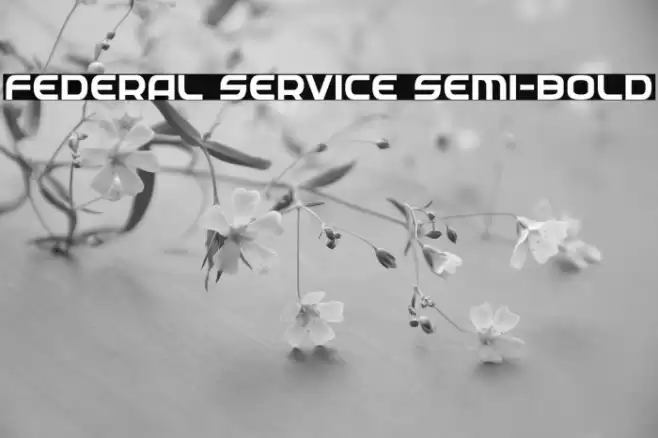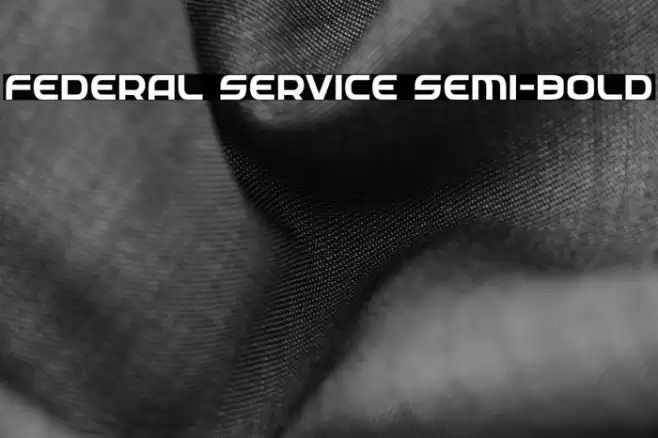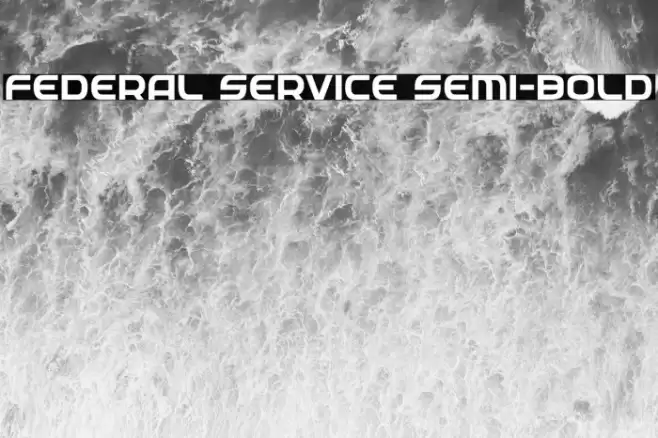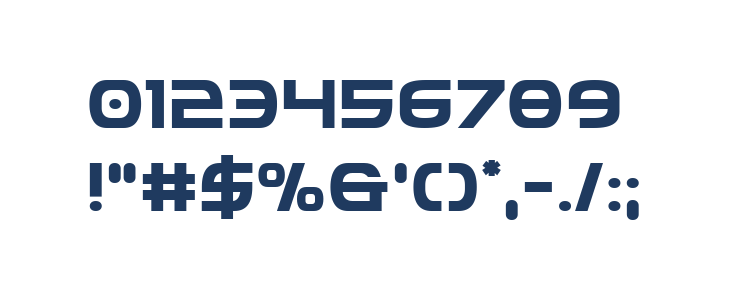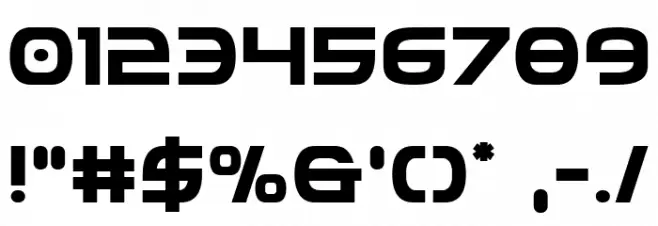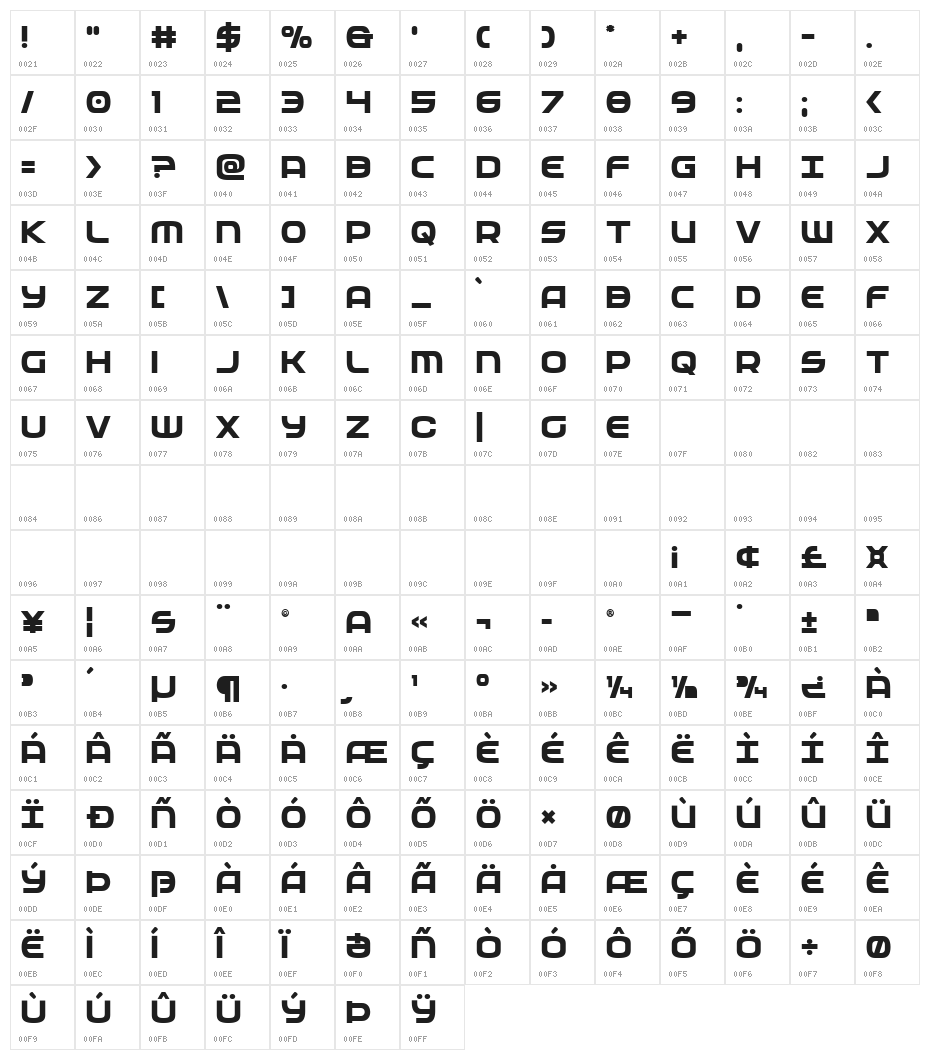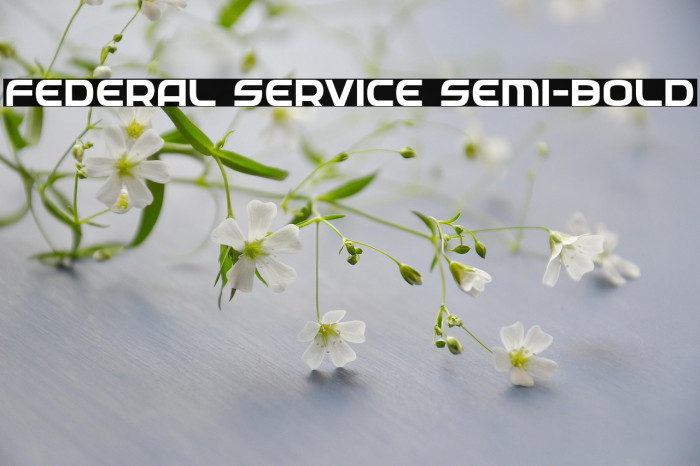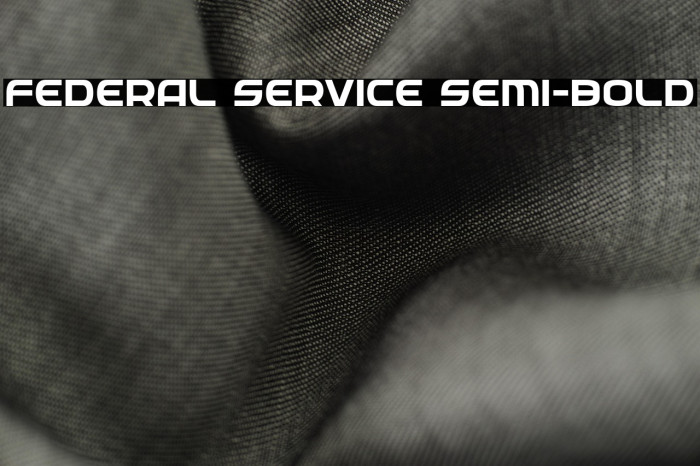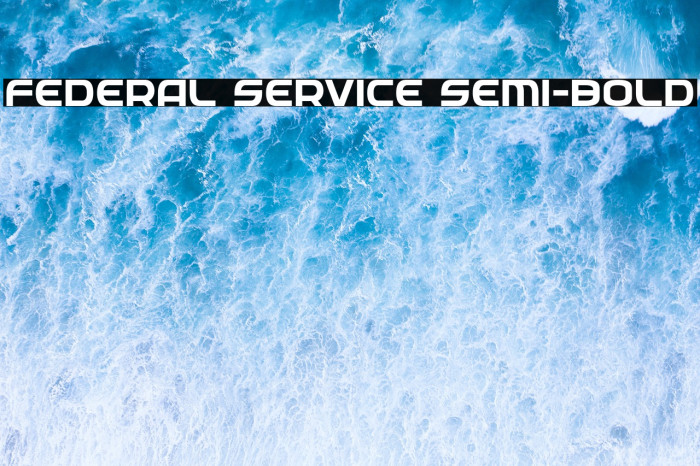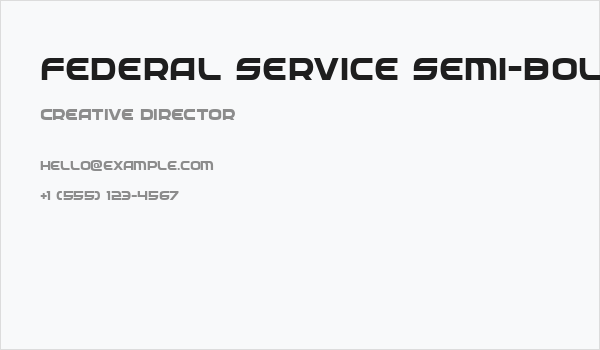
Federal Service Semi-Bold Font
Federal Service Semi-Bold Description
This typeface features a modern, geometric design with a strong presence. The characters are bold and uniform, with a slight curvature that adds a touch of softness to the otherwise robust structure. The uppercase letters are consistent in height, creating a cohesive look, while the lowercase letters maintain a similar width, ensuring readability. The numerals are distinct and clear, making them suitable for various applications. Special characters are well-integrated, maintaining the overall style of the font. The design is versatile, suitable for both digital and print media, offering a contemporary aesthetic that is both professional and approachable.
A modern, geometric typeface with bold, uniform characters and a slight curvature from Uncategorized fonts.
- Proposed Projects: Ideal for branding, advertising, digital media, and print materials that require a strong, modern aesthetic.
- Use Case: Headlines, Logos, Branding